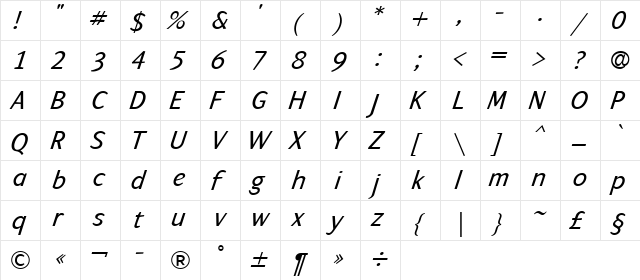
ArtemiusSans TT Regular Italic
Design Context for ArtemiusSans TT Typeface
ArtemiusSans TT offers clean, dependable letterforms without strong stylistic allegiance, making it a practical choice for designers who need flexibility. Its italic angle brings a sense of urgency and motion to the letterforms.